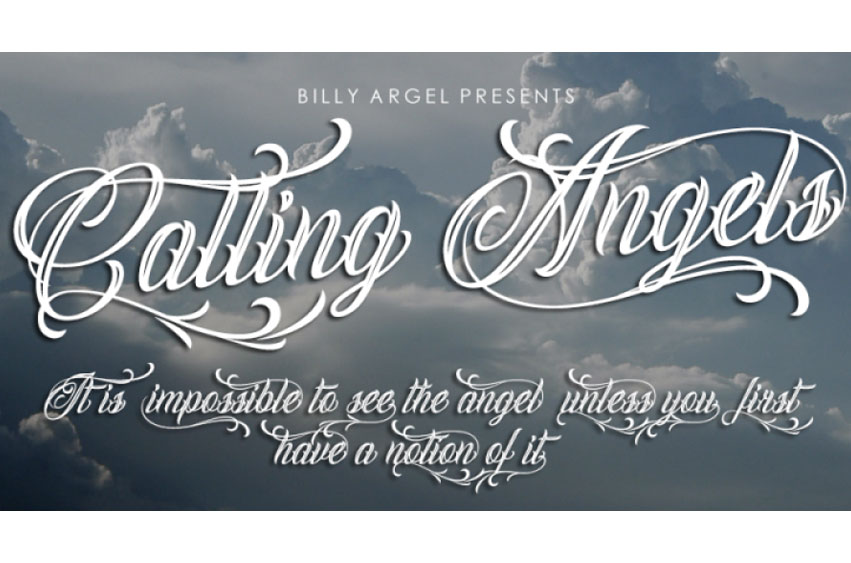
Calling Angels Font
Calling Angels Font is a high quality Calligraphy font that is designed by Billy Argel and is available for free download and personal use. The free version provides all uppercase and lowercase letters and a few special characters too.
The full version of this font has loose swashes are ligatures is not fused at the letters like in the free version. Also has another ligatures for better reading.